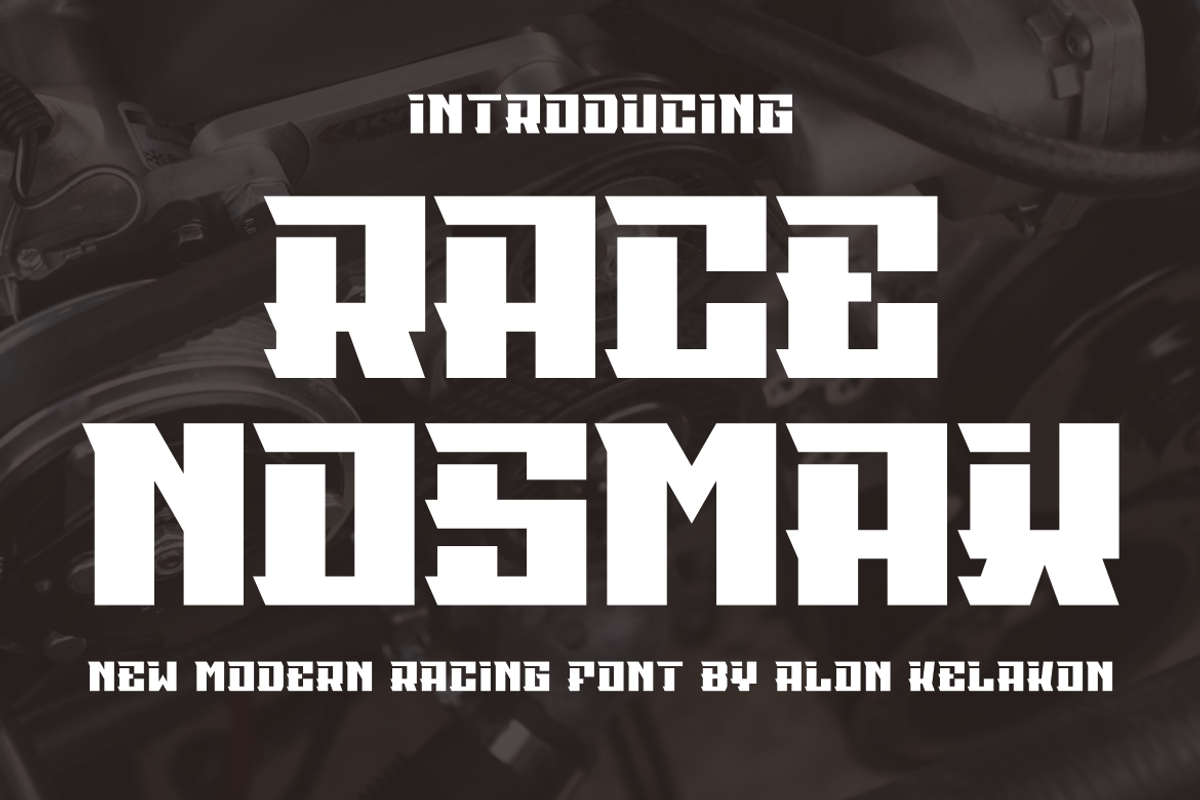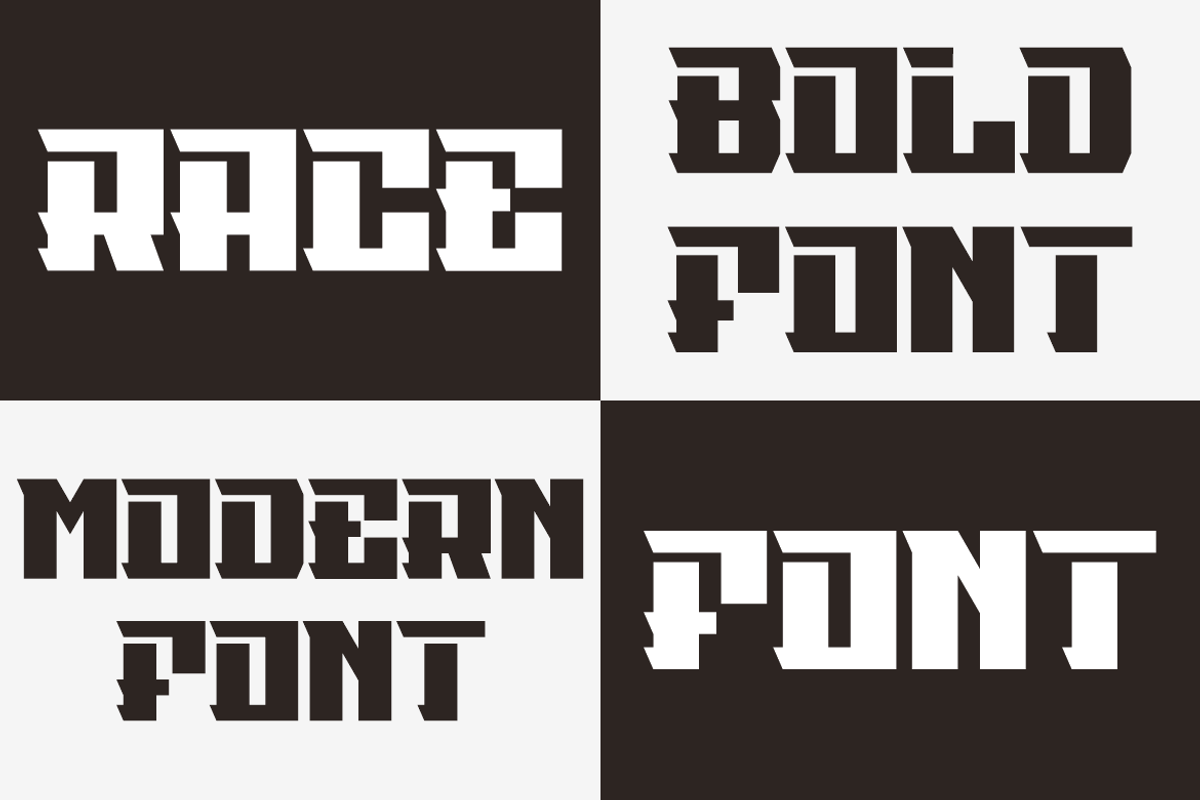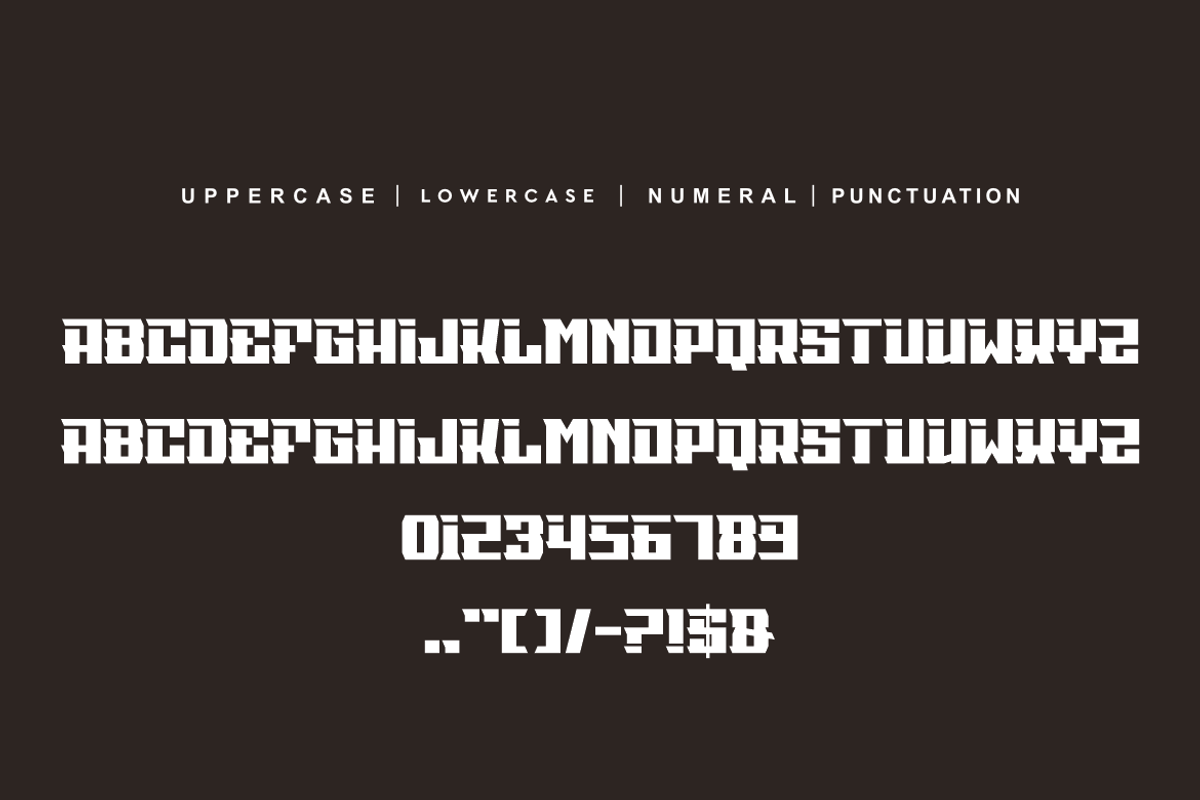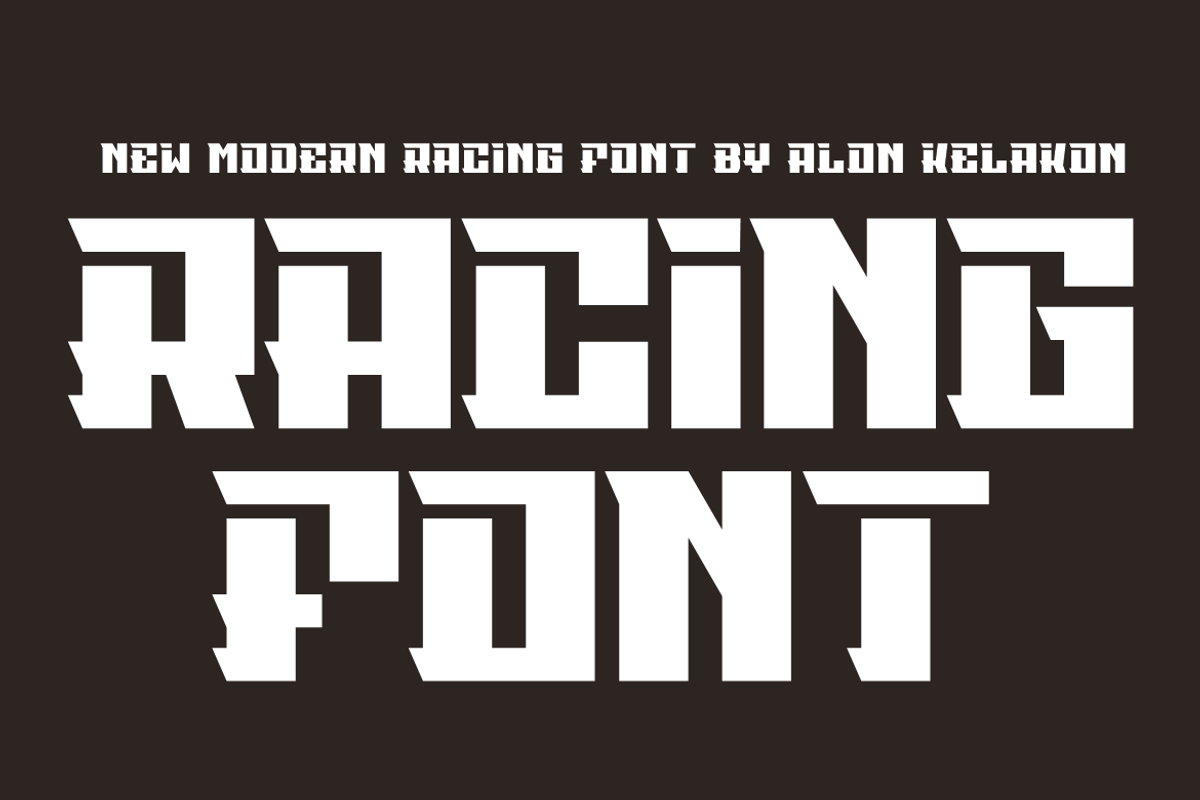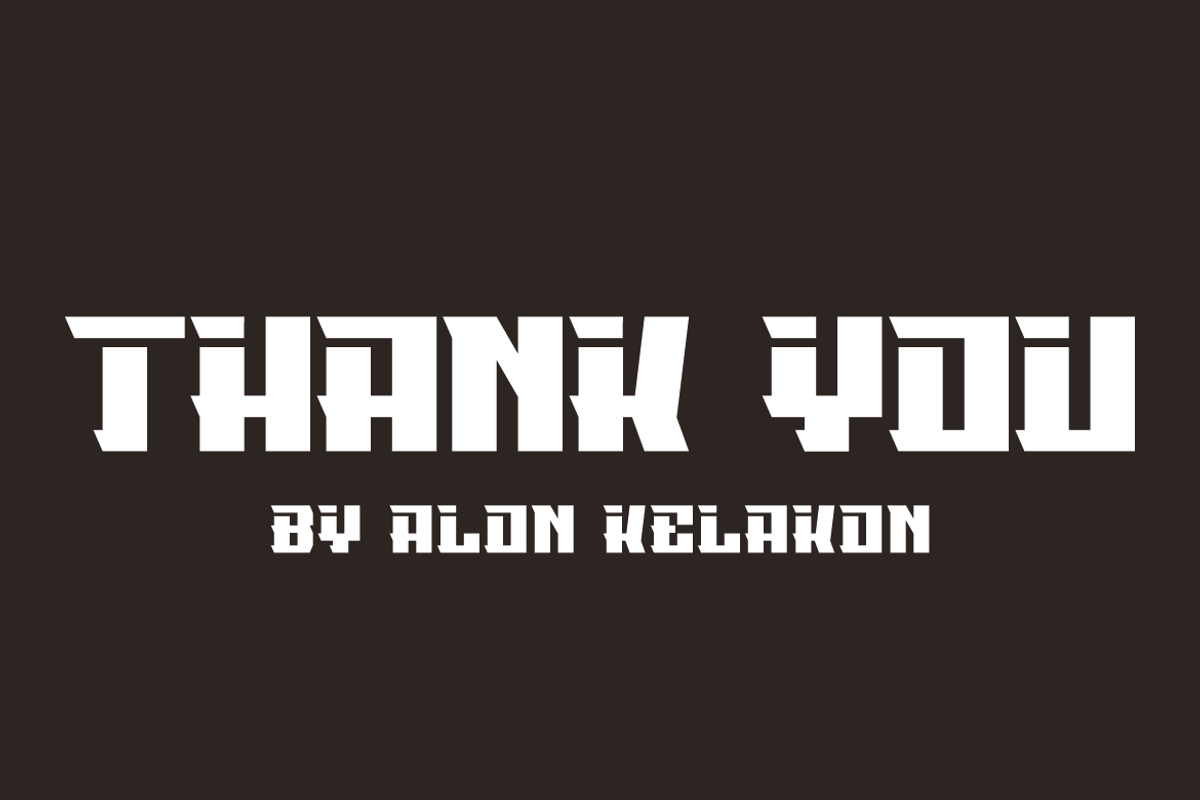
Race Nosmax
Race Nosmax Font is unique . Ready to use for your design like labeling, clothing, movie sceen, poster, movie title, gigs, album covers, logos, and much more.